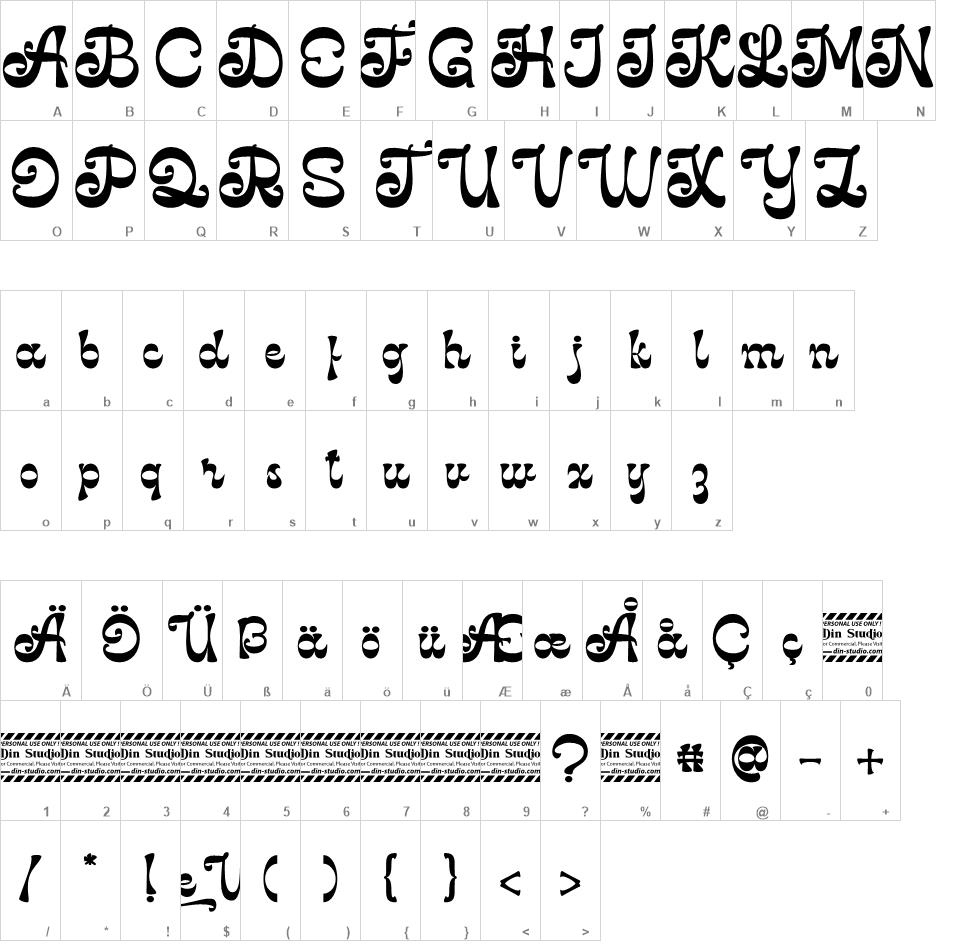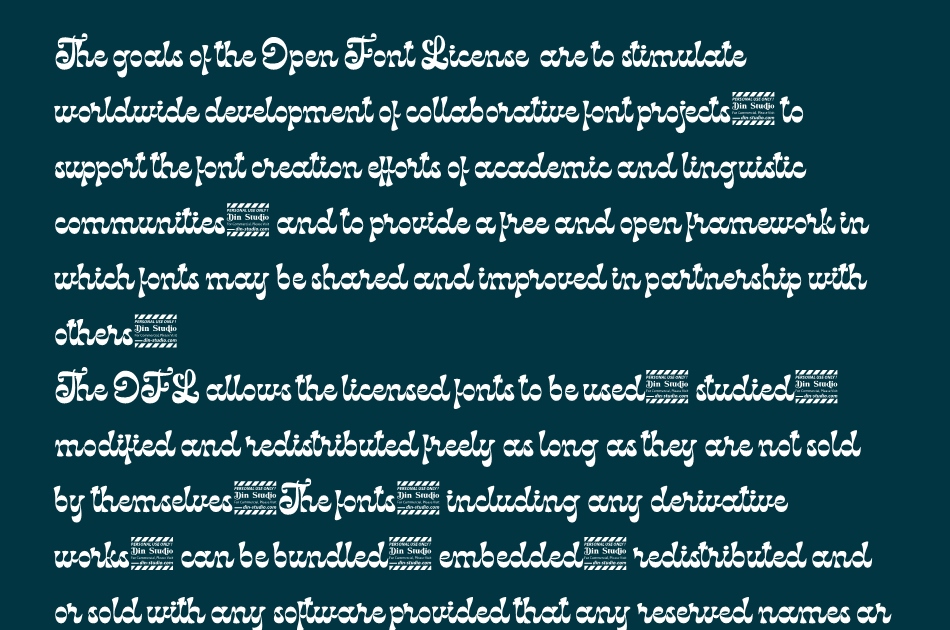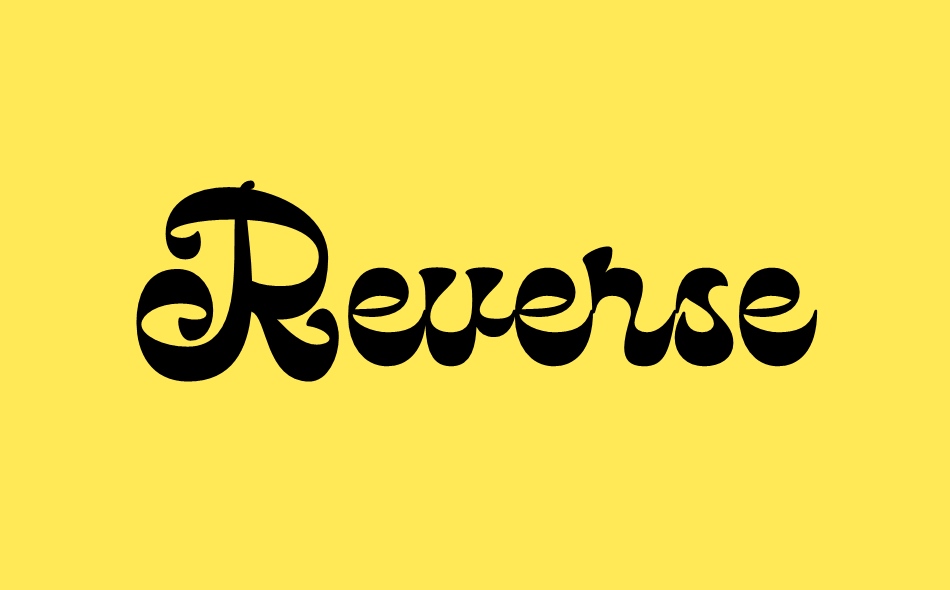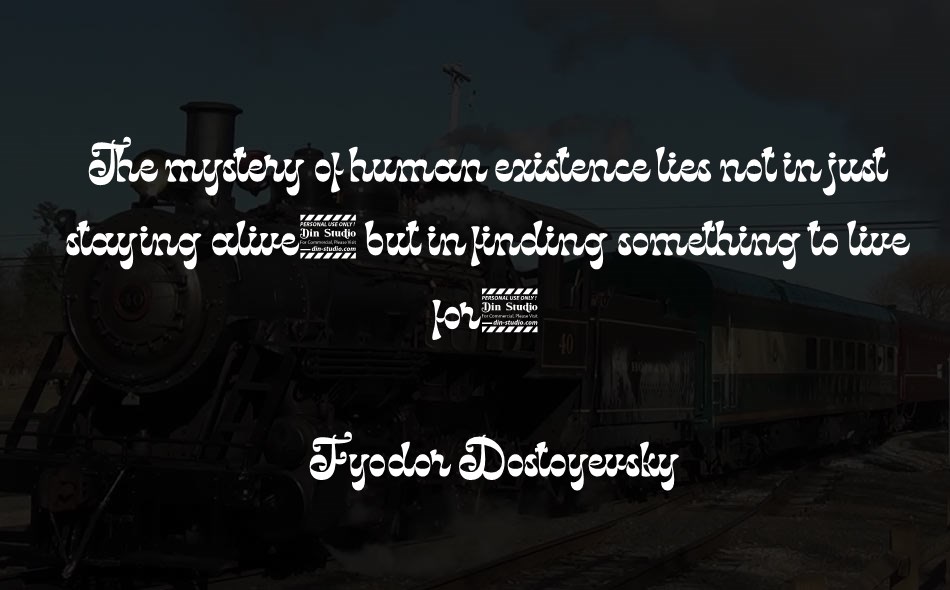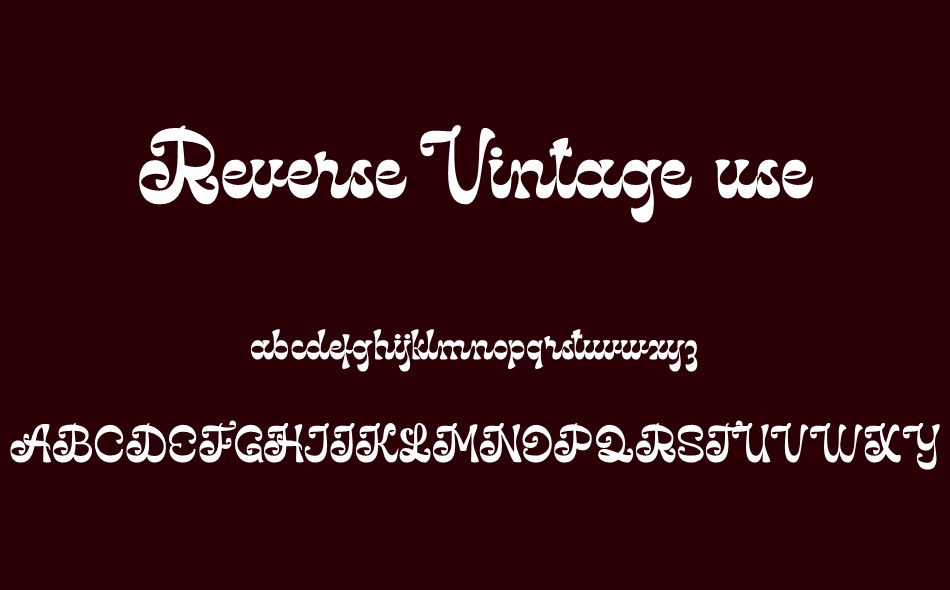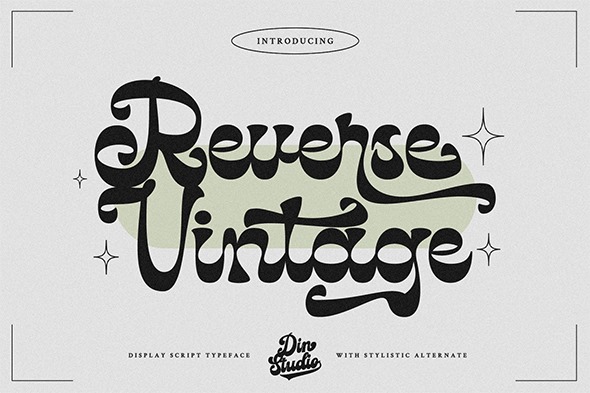
Reverse Vintage font
Reverse Vintage-A Display Font
The Reverse Vintage aims to bring out a modern and stylish view. This font is made specifically designed to fit a variety of different content needs and projects. Everythings well with cursive! The curvature of the Reverse Vintage was fully thought out to easily meld inside your designs. These fonts make a good foundation of what you want it to be. Show your opulence and decadence with this fancy font and blow your audiences mind away as you put these cursive letters in your projects.